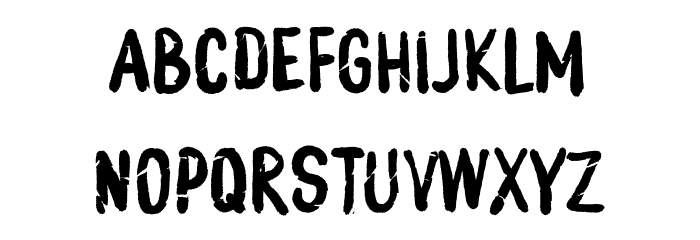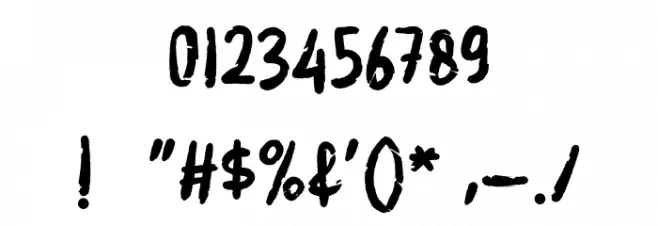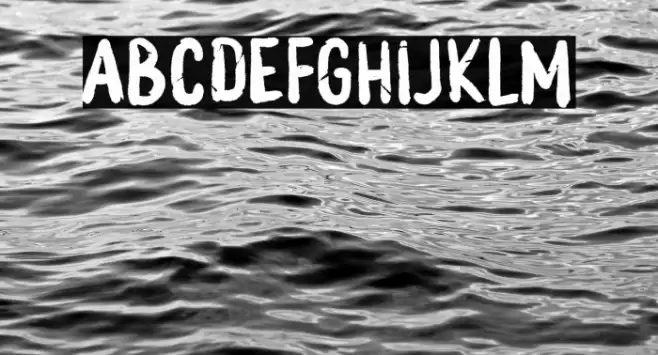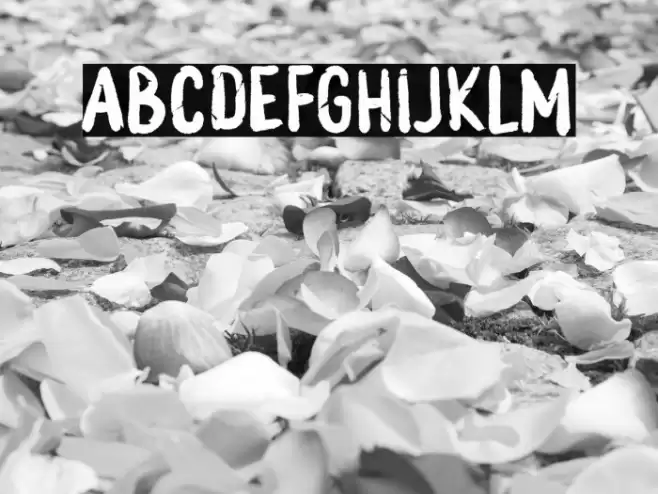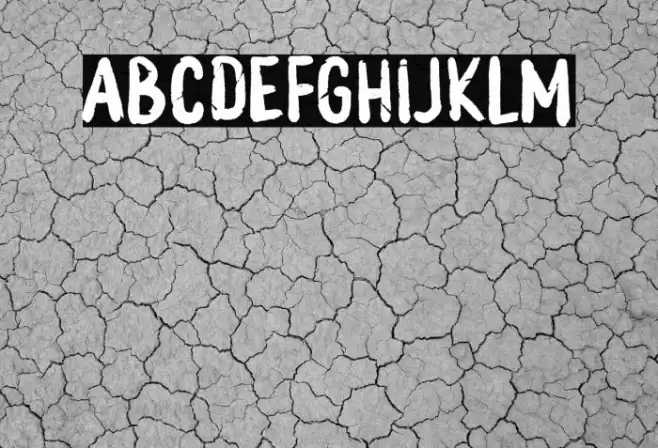
MONSTER BOO Font
This font features a bold, hand-painted style with a slightly distressed texture, giving it a rugged and organic feel. The characters are uppercase and maintain a consistent height, with rounded edges that soften the overall appearance. The strokes are uneven, adding to the handmade aesthetic, and the letters are slightly tilted, enhancing the playful and dynamic look. The numbers and special characters follow the same design principles, ensuring a cohesive appearance across all glyphs. This font is ideal for projects that require a bold and artistic touch, such as posters, album covers, or branding for creative industries.
A bold, hand-painted font with a distressed, organic feel.
- Proposed Projects: Posters, album covers, creative branding, artistic projects.